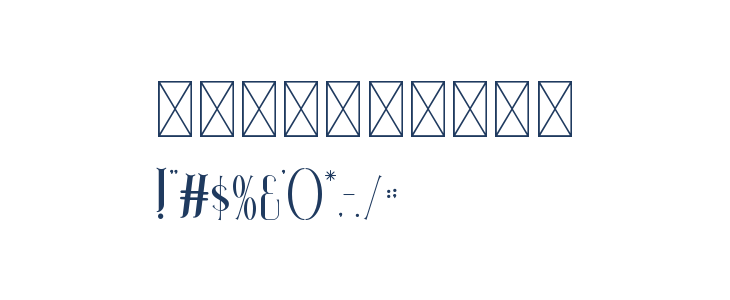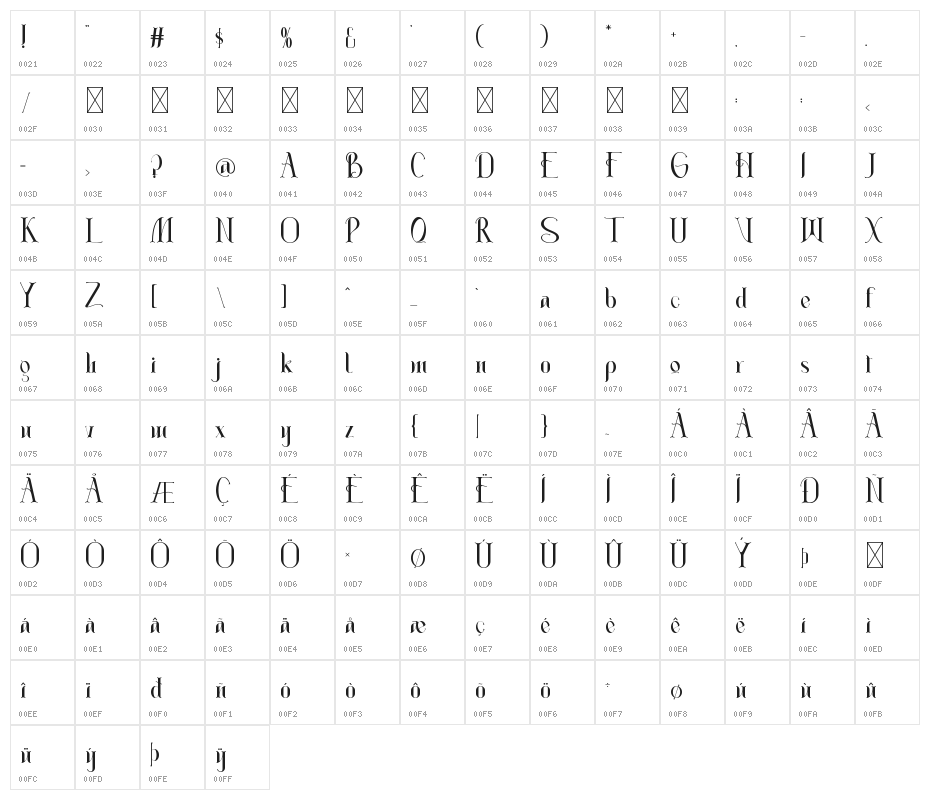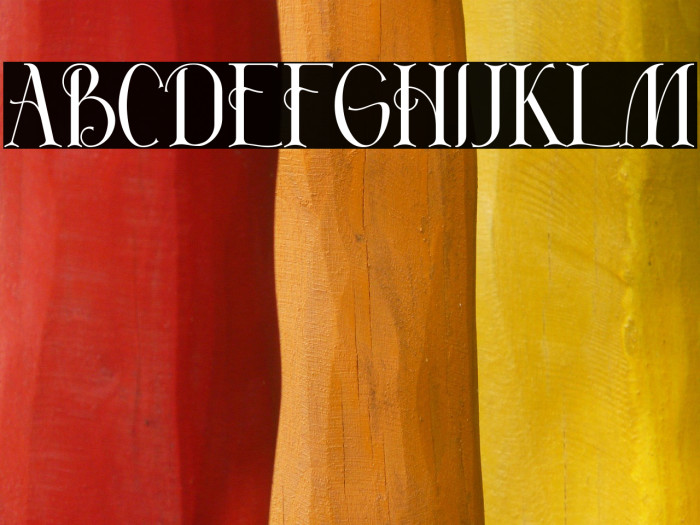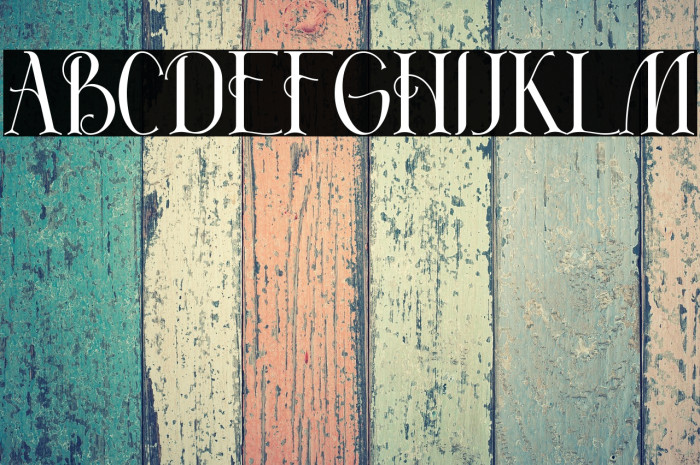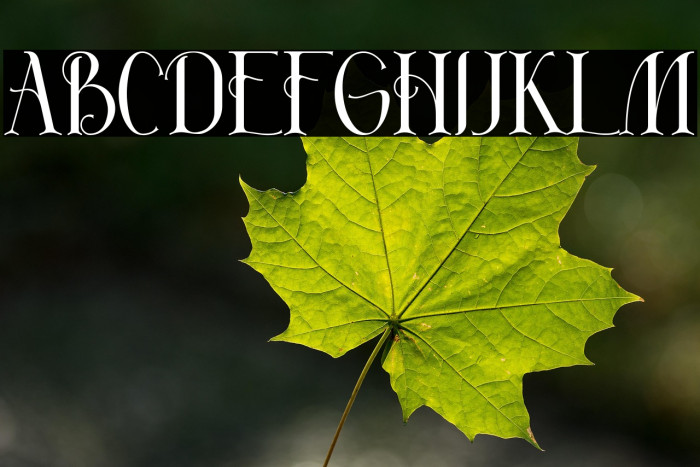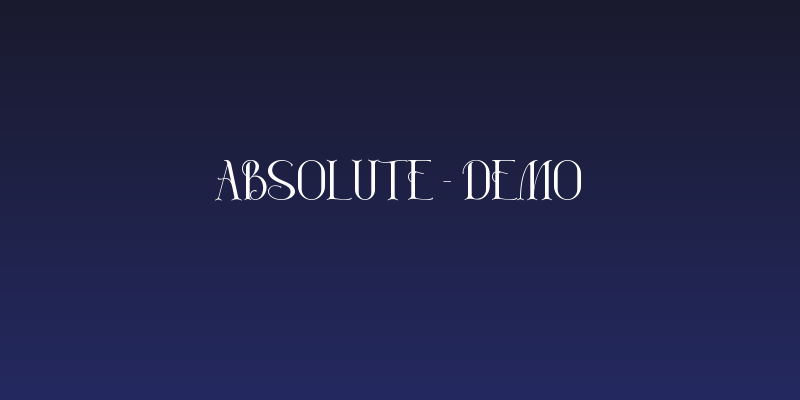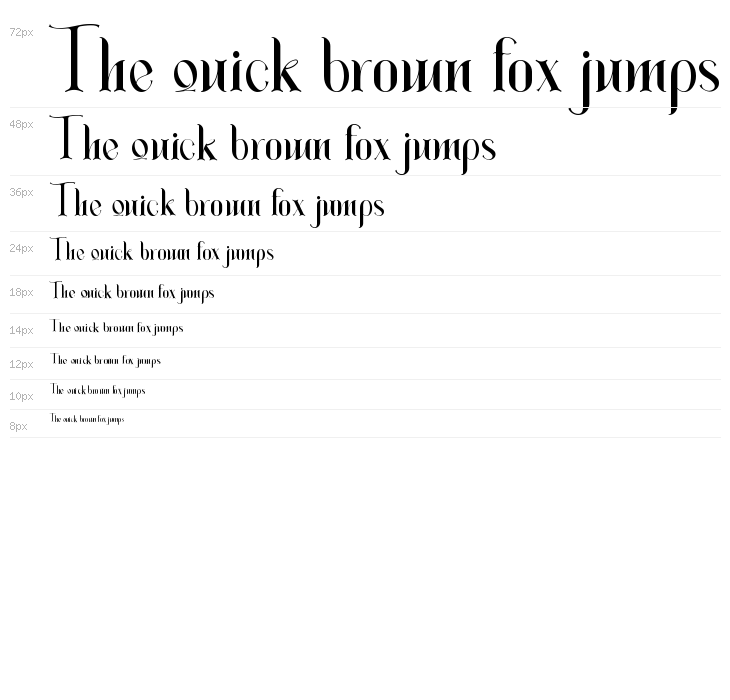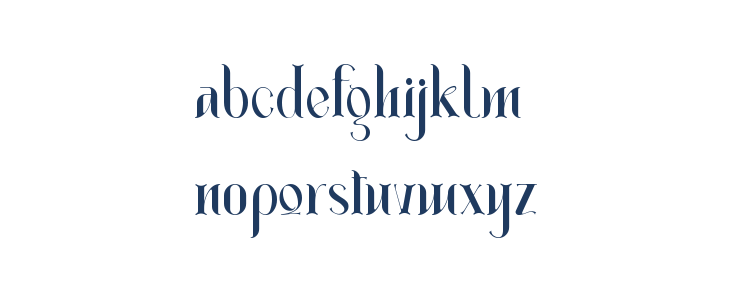
Absolute - Demo Font
Absolute - Demo Description
This font exhibits a unique and artistic style, characterized by its elegant and flowing letterforms. The uppercase letters feature elongated vertical strokes with subtle curves, creating a sense of movement and sophistication. The lowercase letters maintain a consistent style, with some characters displaying distinctive loops and flourishes. The font's overall appearance is both decorative and refined, making it suitable for creative and expressive design projects. The special characters are designed with the same attention to detail, adding to the font's cohesive look.
| Proposed Projects | Ideal for wedding invitations, luxury branding, artistic posters, and creative editorial design. |